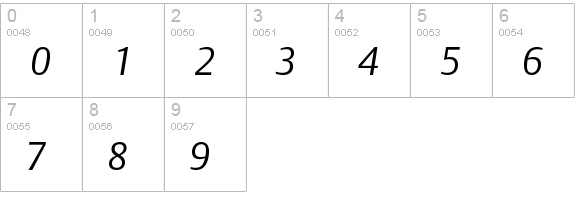
DTLArgoT-LightItalic Font Details
DTLArgoT-LightItalic font is a modern and elegant typeface that exudes sophistication and style. Its delicate, yet distinct italic design adds a touch of flair to any text. Perfect for creative projects, branding materials, and editorial content, this font is versatile and eye-catching. What makes DTLArgoT-LightItalic font even more appealing is that it is completely free to download at FontsMarket.com. This means that you can elevate your designs without worrying about any additional costs. Don't miss out on the opportunity to enhance your work with this beautiful and freely available font.